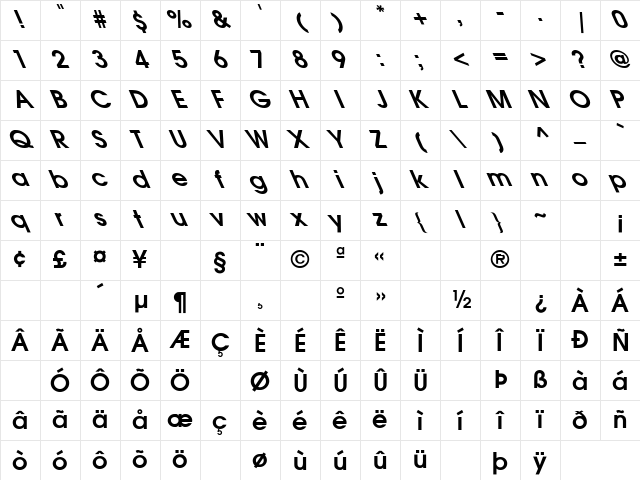
Complete Avant Garde-Demi Extreme Lefty glyph index. Displaying only characters natively supported by Avant Garde-Demi Extreme Lefty font.
Avant Garde-Demi Extreme Lefty is a composed and adaptable typeface that performs quietly and consistently across a wide range of design contexts.